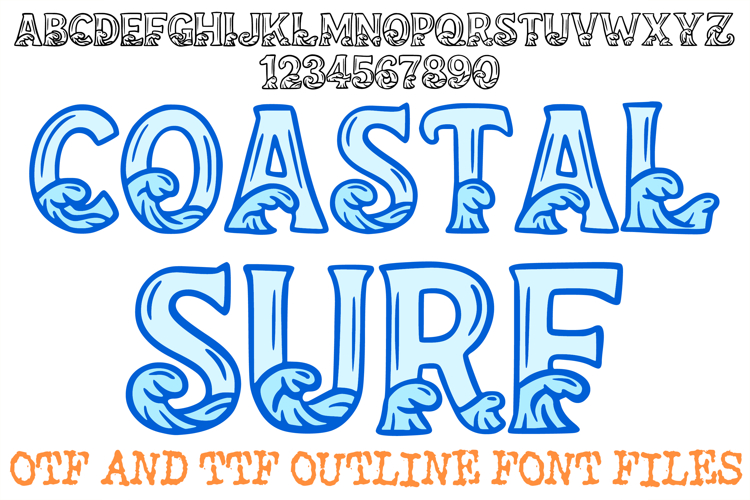
Coastal Surf Alphabet Lettering Font Seaside Waves ABC OTF
Catch the ultimate tide with Coastal Surf, a fully installable display font featuring ocean wave line art embedded into every letter and number! Designed with smooth, hand-drawn wave details cresting along bold letterforms, this font brings an authentic beach and surf vibe straight to your keyboard
Ideal For:
Apparel & Merch: Surf t-shirts, hoodies, beach totes, hats, and vacation wear.
Branding & Signage: Surf shop logos, beach bar menus, coastal decor signs, and event posters.
Paper Crafts & Decor: Party banners, summer invitations, sticker packs, and postcards.
Digital & Crafting: Cutting machine projects, social media graphics, and print-on-demand designs.